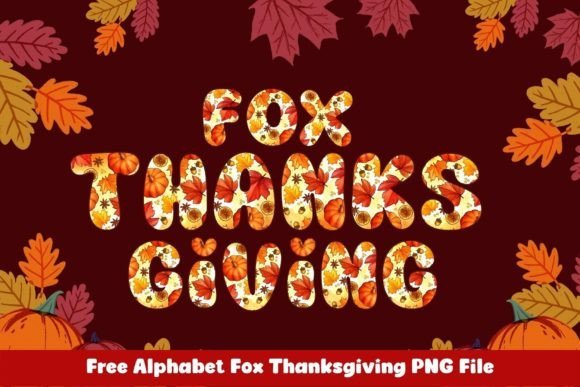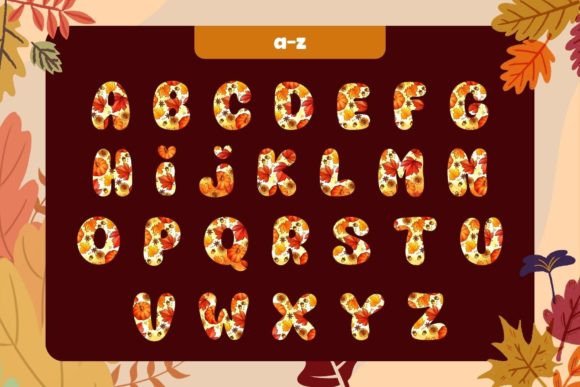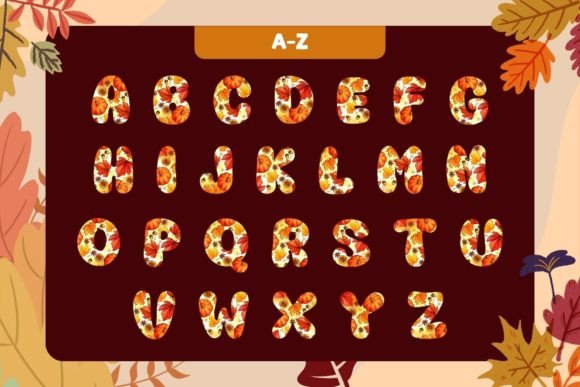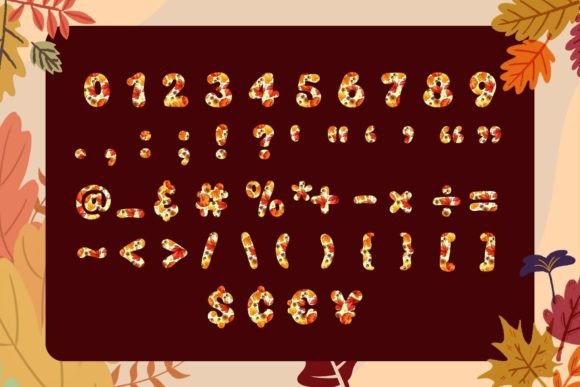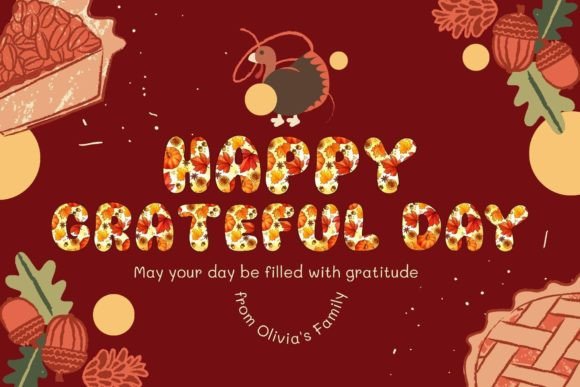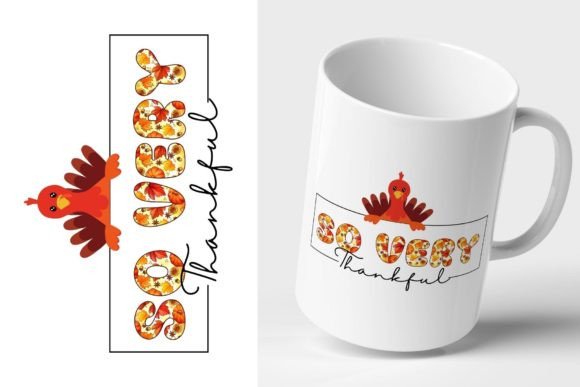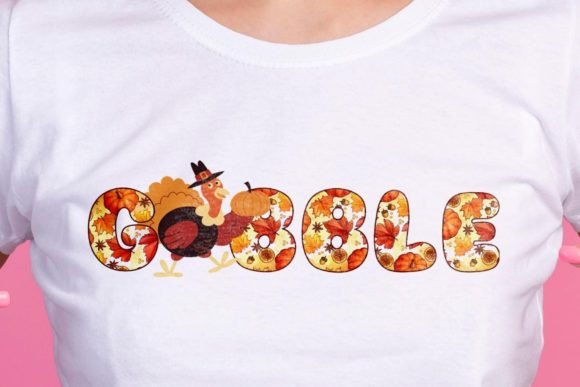
Give Thanks with a Creative Twist
As the holiday season approaches, many of us find ourselves immersed in a flurry of creative projects – from crafting heartfelt cards to designing festive merchandise. It’s that moment of inspiration, when a simple idea sparks a thousand possibilities, that we remember why we love design in the first place. For those seeking to infuse their creations with the warmth and spirit of Thanksgiving, there’s a secret ingredient that can elevate any project: the Fox Thanksgiving Font.
With its unique blend of seasonal aesthetics and expressive typography, the Fox Thanksgiving Font is a valuable asset for designers looking to add a touch of gratitude to their work. Whether you’re a seasoned pro or a DIY enthusiast, this font is sure to inspire creativity and help you express your holiday spirit in a way that’s both authentic and eye-catching.
Fox Thanksgiving Font Key Features
- Unique Characteristics: The Fox Thanksgiving Font features a unique, hand-drawn design with a rustic and whimsical feel, perfect for adding a personal touch to holiday-themed projects.
- Character Set: The font includes a wide range of characters, including uppercase and lowercase letters, numbers, punctuation marks, and special symbols, ensuring versatility in design applications.
- Style Options: The Fox Thanksgiving Font comes in multiple styles, including regular, bold, italic, and bold italic, allowing designers to experiment with different looks and feels.
Designer Review: Fox Thanksgiving Font
I recently had the chance to work with the Fox Thanksgiving Font, and I must say it’s a mixed bag. Here’s what I think:
- The font’s playful and whimsical feel is perfect for creating a festive atmosphere, especially during the holiday season.
- The fox character is adorable and well-designed, adding a fun touch to any project.
- The font is highly customizable, with a wide range of colors and sizes to choose from.
- The font’s bold and playful style may not be suitable for all types of projects, such as formal invitations or business documents.
- The fox character can be a bit overwhelming if used excessively, so it’s essential to use it judiciously.
- The font’s legibility can be affected by the use of bold or italic styles, which may make it harder to read in certain situations.
Overall, I think the Fox Thanksgiving Font is a great choice for projects that require a fun and festive feel. While it may have some limitations, its versatility and customizability make it a great addition to any designer’s toolkit. Just be sure to use it wisely and balance it with other design elements to avoid overwhelming the viewer.
For optimal results, use “Fox Thanksgiving Font” for titles, headings, and short paragraphs. It’s ideal for creating a festive atmosphere in Thanksgiving-themed designs, invitations, and social media posts. Experiment with different font sizes and colors to create a visually appealing design.